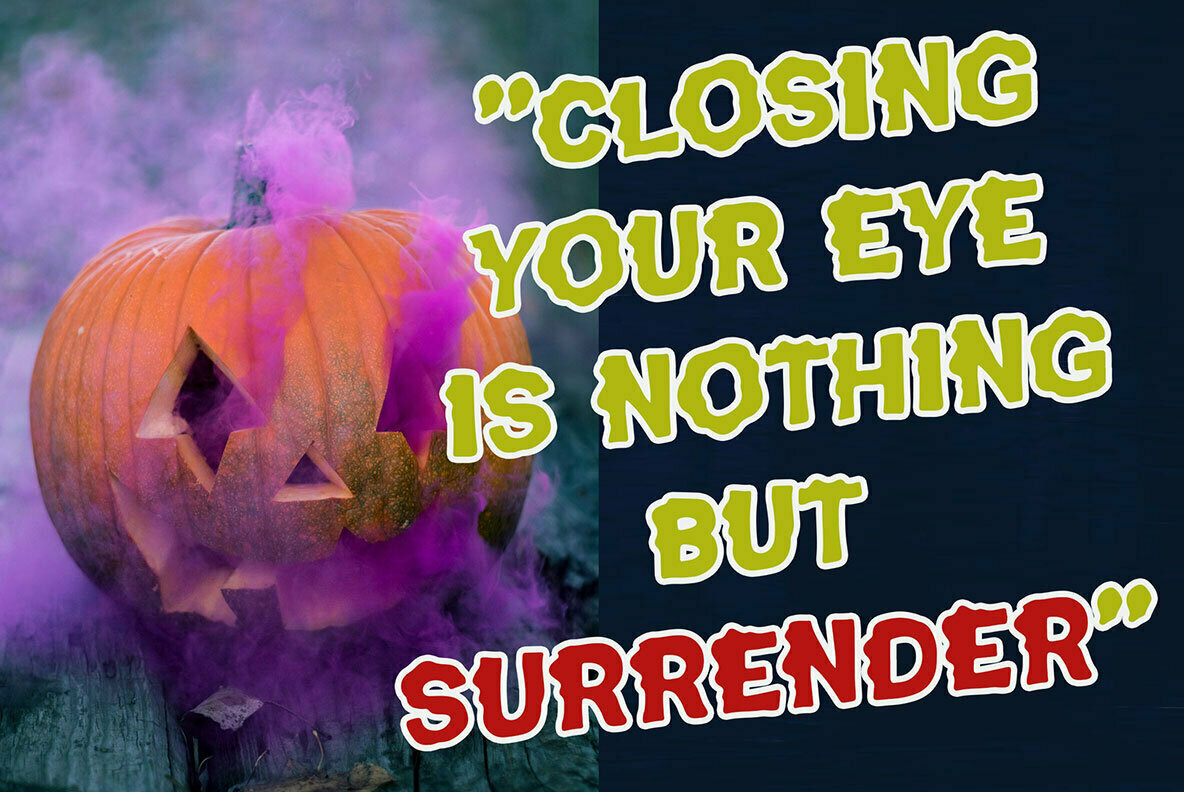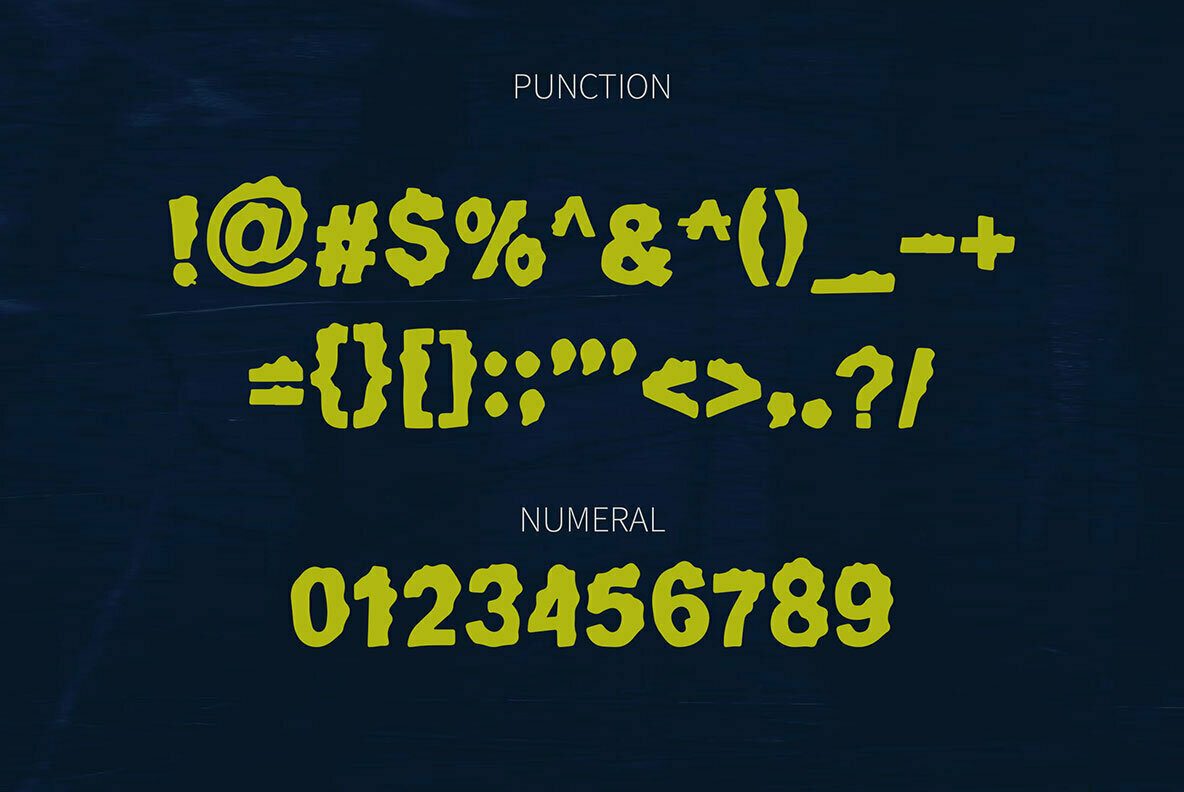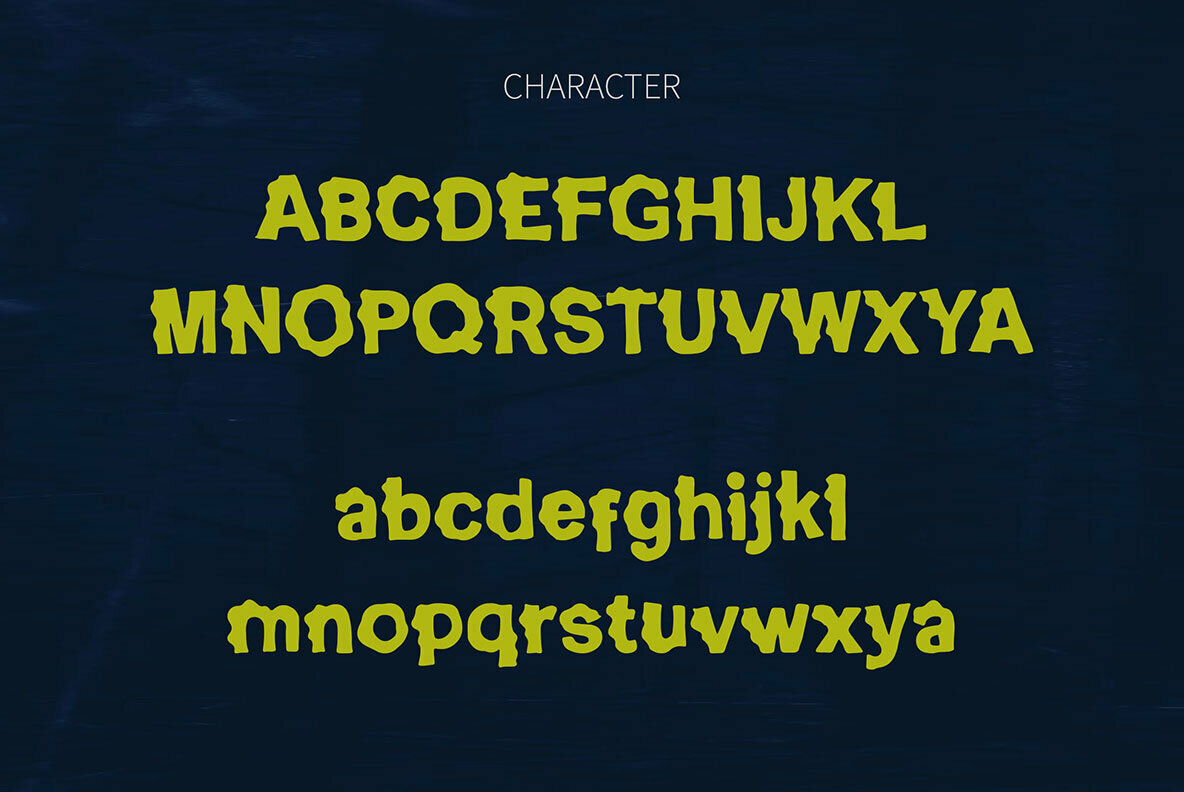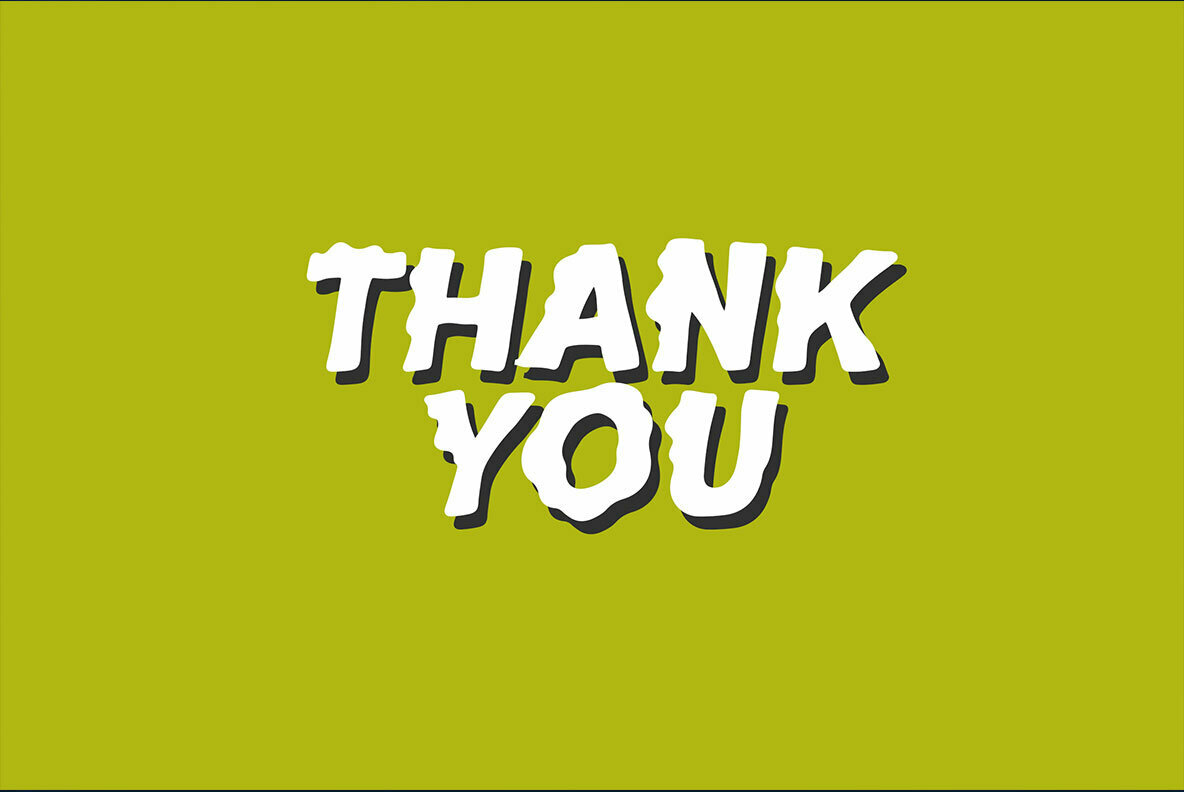
Ghostbumps Font
Ghostbumps
Ghostbumps captures the essence of horror with its playful yet chilling aura. This unique display font combines a cartoonish style with a spine-tingling edge, making it an ideal choice for projects that require an eerie touch.Ghostbumps: An Eerie Display Font